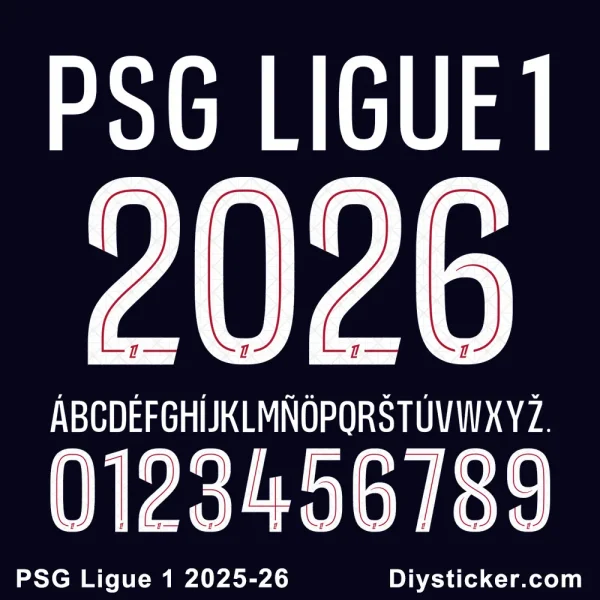
PSG Ligue 1 2025-26 Font Download
Elevate your design game with the official PSG Ligue 1 2025-26 font, crafted for football enthusiasts and designers alike. This premium font package includes TTF, OTF, AI, CDR, and PDF vector files, offering versatility for jersey printing, logos, and creative projects. Featuring a sleek, modern design with red accents, this font captures the spirit of Paris Saint-Germain’s 2025-26 season. Easy to install and compatible with WordPress, WooCommerce, and major design software. Download now and bring authentic Ligue 1 style to your work!